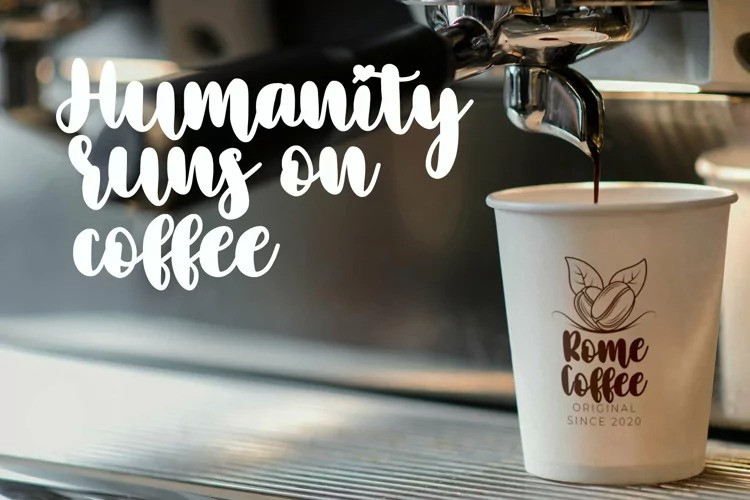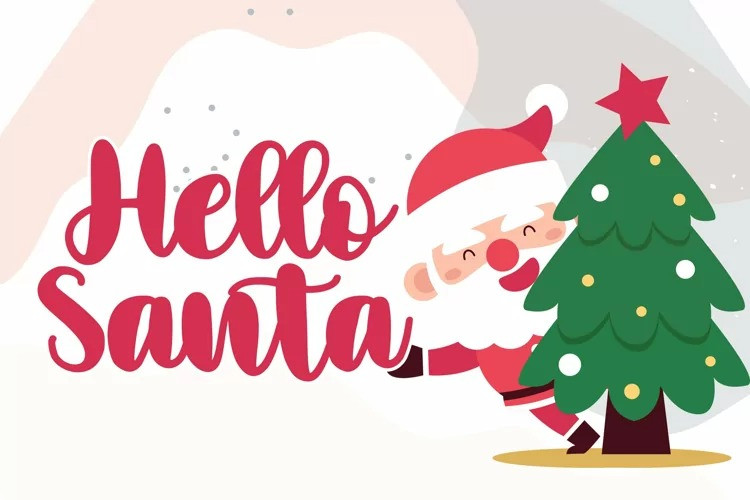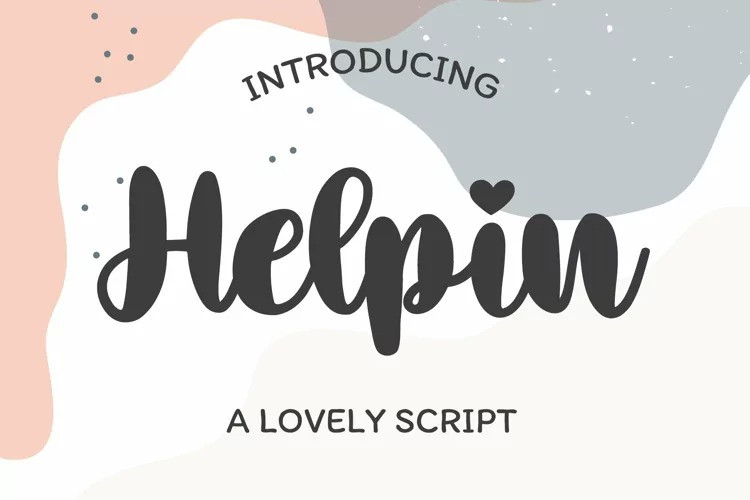
Helpin Font
Helpin Font is a beautiful and refined script font. It has a classy, elegant and modern look that can be used for logos, branding, invitations, stationery, wedding designs, social media posts, and much more!